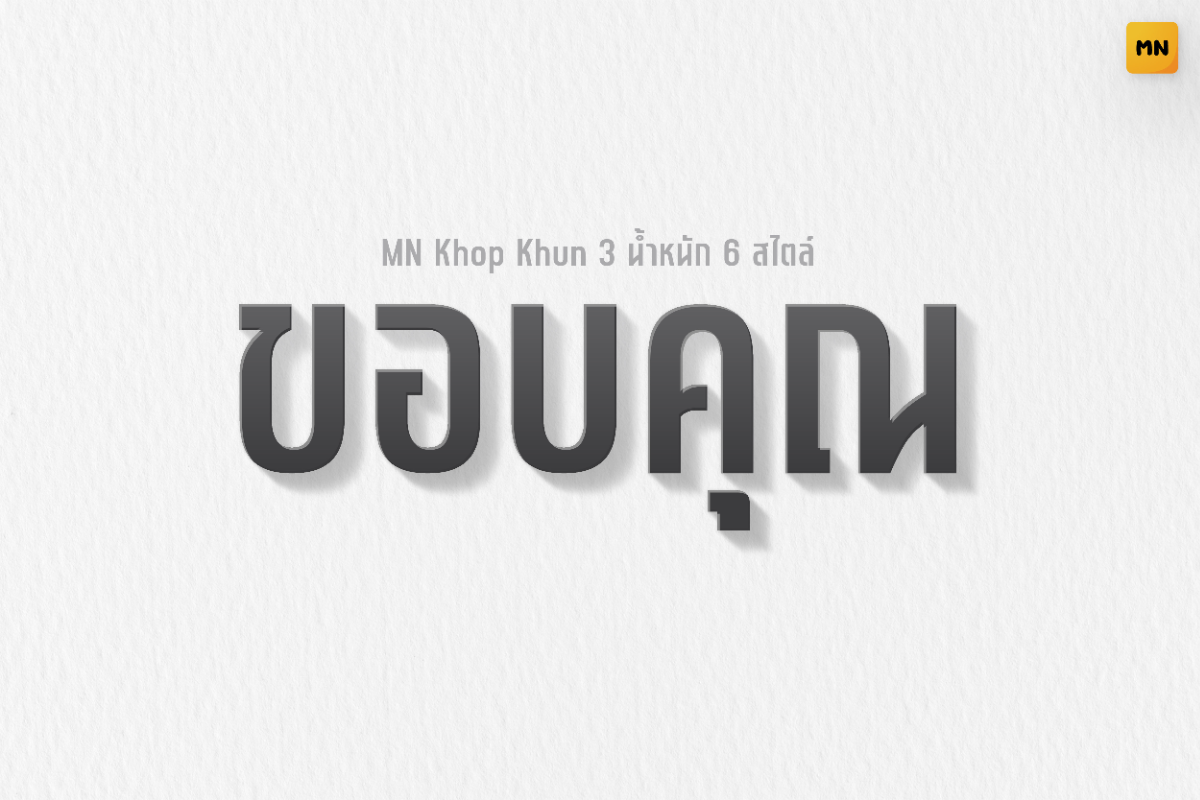
MN Khop Khun Regular
A modern Thai sans serif typeface with bold strokes, compact proportions, and a balanced mix of rounded curves and angular details.